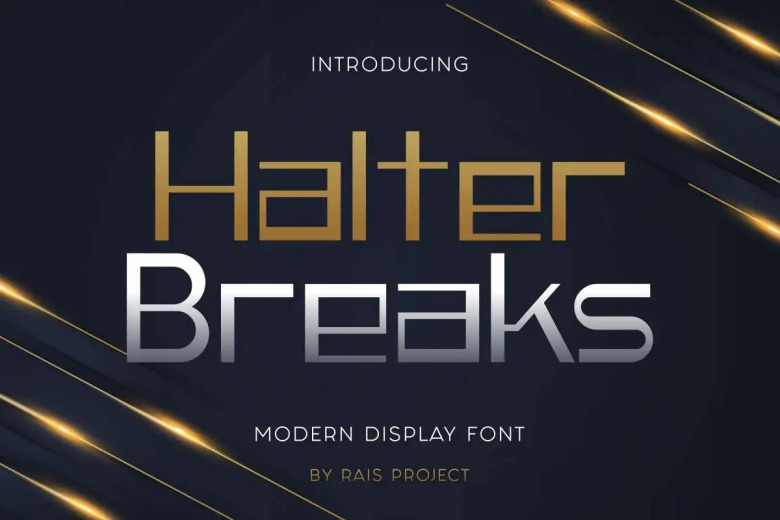
Halter Breaks Font
Halter Breaks Font is a sans display font. The text in this font is bold, with long lines and large fonts. With those fonts, you can do whatever crafty design that pops in your mind! Business card, signage, brand logo and label designs. Personalized, custom made crafts into something a little more special. Even product packaging and fun poster or some web page (including quote images).
Halter Breaks Display Font